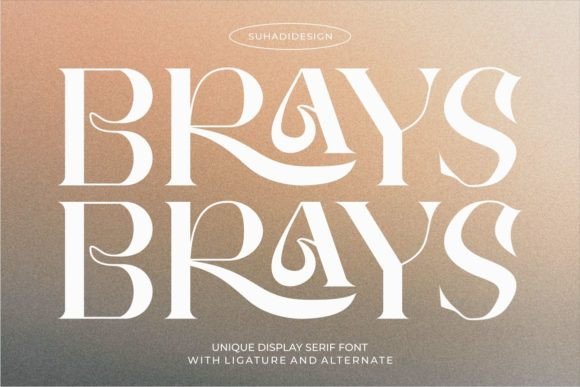
The Ultimate Game-Changer for Designers: Brays Font
Have you ever been working on a design project, pouring your heart and soul into it, only to feel like something’s missing? You know, that elusive touch that elevates your design from good to great? For designers, this moment is a familiar one. It’s the spark that drives us to keep pushing the boundaries of creativity. And that’s exactly where the Brays Font comes in – a game-changing addition to any designer’s toolkit.
The Brays Font is a unique serif font designed to meet the demands of the modern market. With its elegant, classy style and numerous ligatures, this font is sure to become a market favorite. Whether you’re working on a beauty brand, magazine, or travel project, the Brays Font is the perfect choice to elevate your designs to new heights.
Brays Font Key Features
- Unique Characteristics: Brays Font features a distinctive, elegant design with subtle flair and rounded edges, making it suitable for both body text and display typography.
- Font Weight: Brays Font offers a range of font weights, from Light to Extra Bold, allowing designers to achieve the desired level of emphasis and visual hierarchy.
Review of Brays Font
Brays Font is a unique and interesting addition to any design project. Here are some things that I think work well:
- ✨ The font’s bold and confident personality shines through in its design, making it perfect for headings and titles.
- ✨ Brays Font has a wide range of languages supported, making it a great choice for projects that require multilingual support.
- ✨ The font’s clean and modern lines give it a professional feel that’s perfect for business and corporate projects.
- ⚠️ The font can appear somewhat generic at smaller sizes, which may make it harder to read.
- ⚠️ Brays Font may not be the best choice for projects that require a lot of italics or script text, as it doesn’t have a strong italic or script variant.
Overall, I think Brays Font is a solid choice for designers who are looking for a confident and professional font. While it may have some limitations, its clean lines and modern feel make it a great addition to any design project.
Tips for Getting the Most Out of Brays Font
Use Brays Font for creative and artistic purposes, such as designing logos, typography-based art, or headings for creative projects.
Pair Brays Font with other creative fonts to add visual interest and depth to your designs.
Experiment with different font sizes, colors, and styles to find the perfect combination for your project.
Brays Font is ideal for:
Logo design and branding
Typography-based art and creative projects
Headings and titles for creative projects